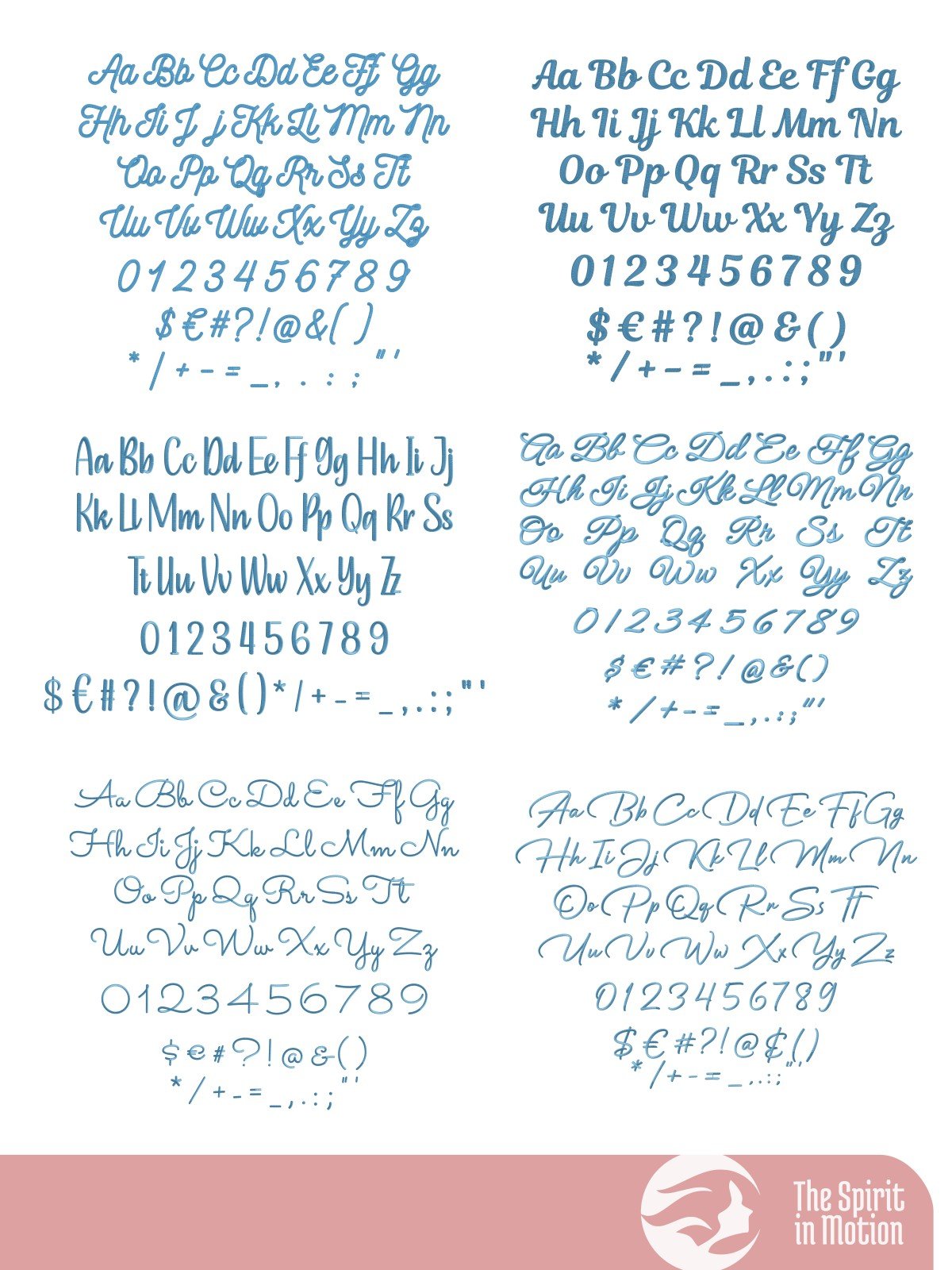
Introducing the Script Embroidery Font Bundle #2. Perfect for personalizing clothing, apparel, accessories, wedding designs, or home décor, our fonts will add elegance and charm to your embroidered names, quotes, and decorative details. The listed sizes refer to the approximate height of uppercase letters, though adjustments may be needed depending on your specific project and machine settings.
INCLUDED FONTS:
1. Ayshana Script
2. Basha Signature
3. Crafty Kitten Monoline
4. Finch Signature
5. Highbright Script
6. Lobster Script
7. Magnolia Script
8. Nickainley Monoline Regular
9. Sacramento Monoline
10. Tasteful Sandwich